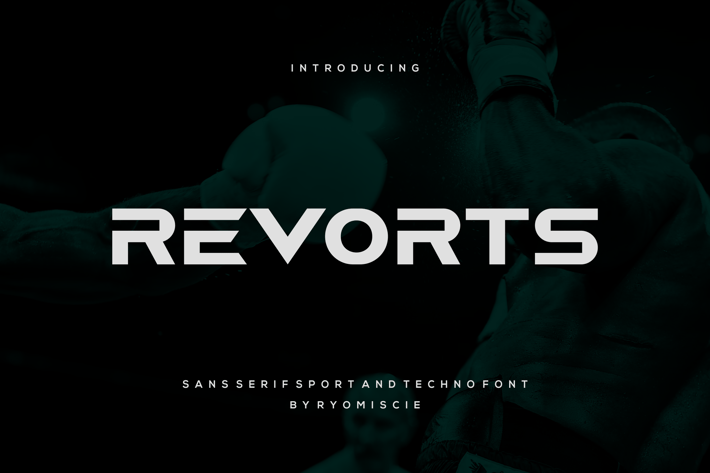
Revorts - Sans Serif Sport And Techno Font
Introducing our new product Revorts Font - Sans Serif Sport And Techno Font
Revorts Font - Modern Font is a bold and authentic display font. The font is suitable for any branding project like logo,
t-shirt printing, esport, and many more. outstanding in a wide range of contexts.